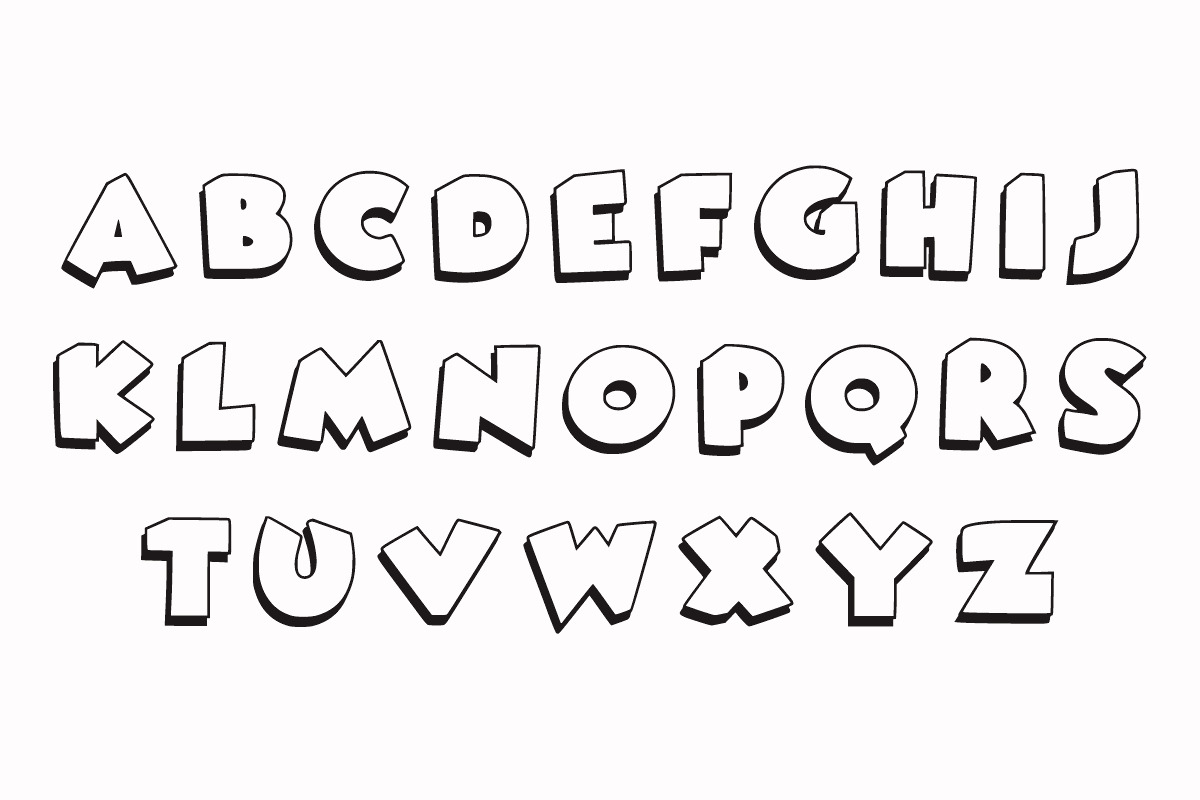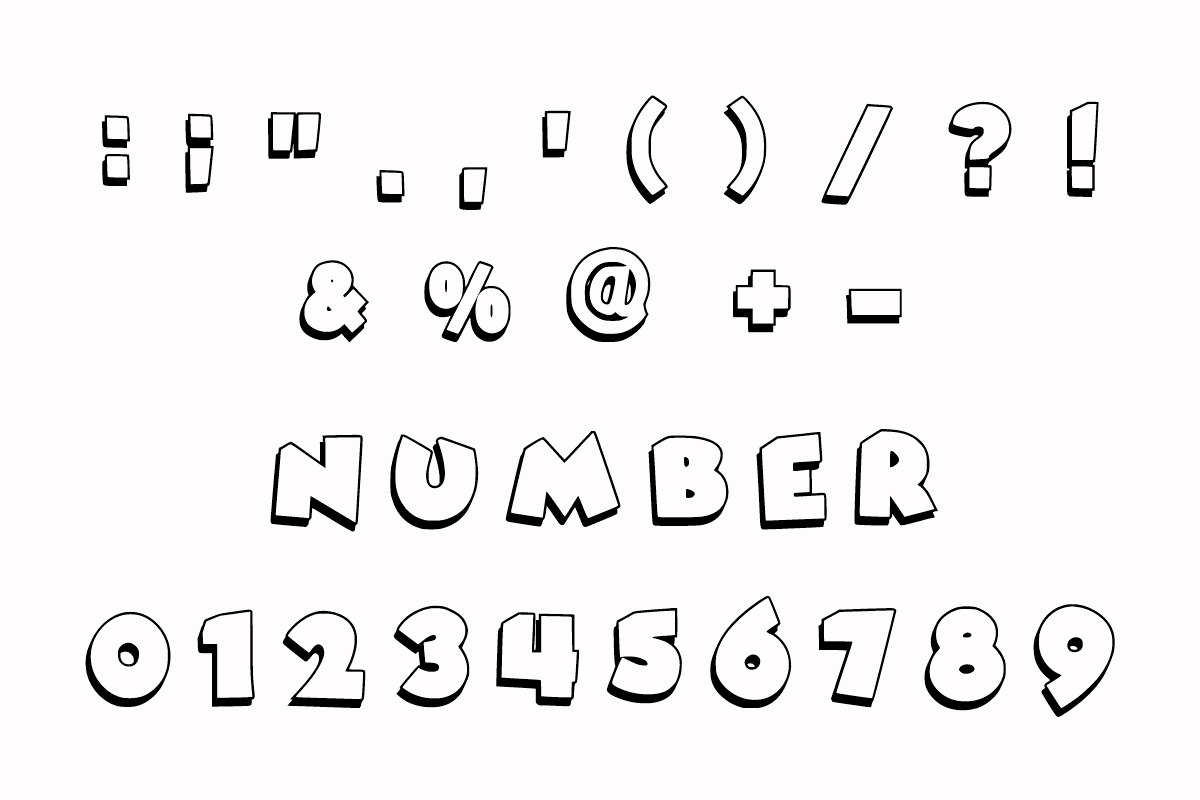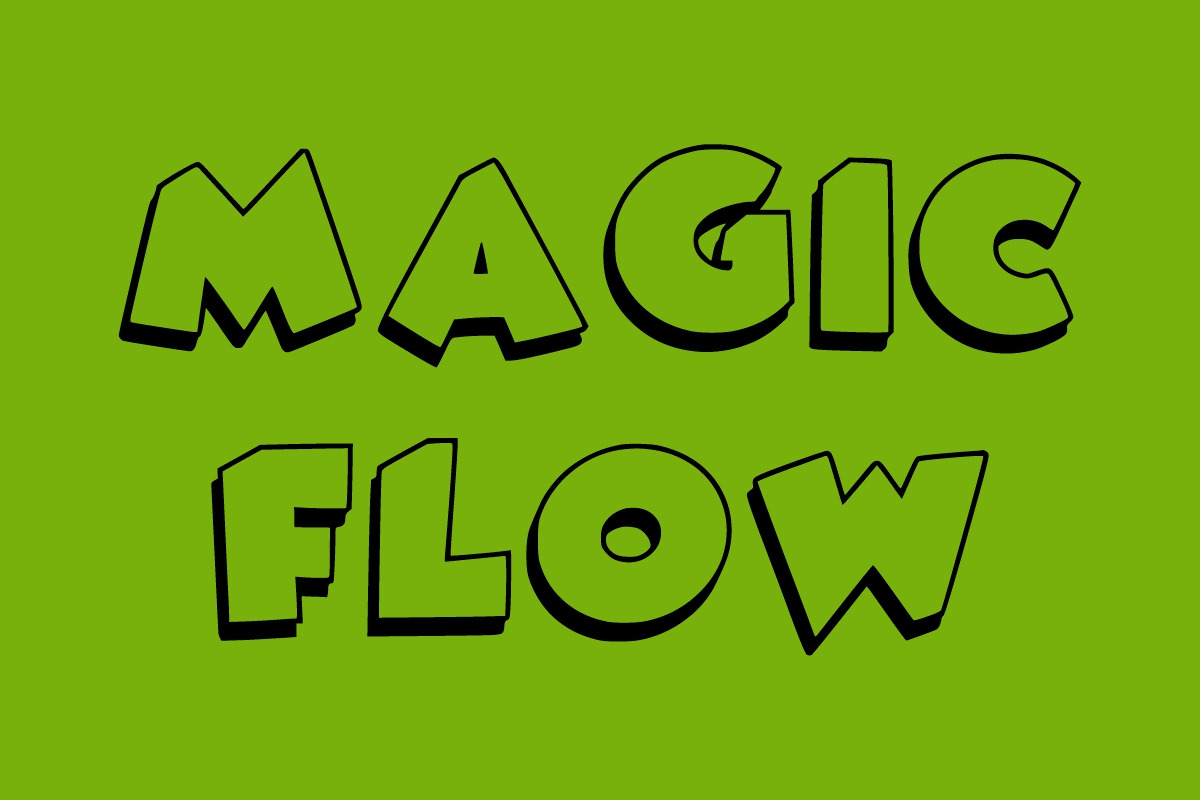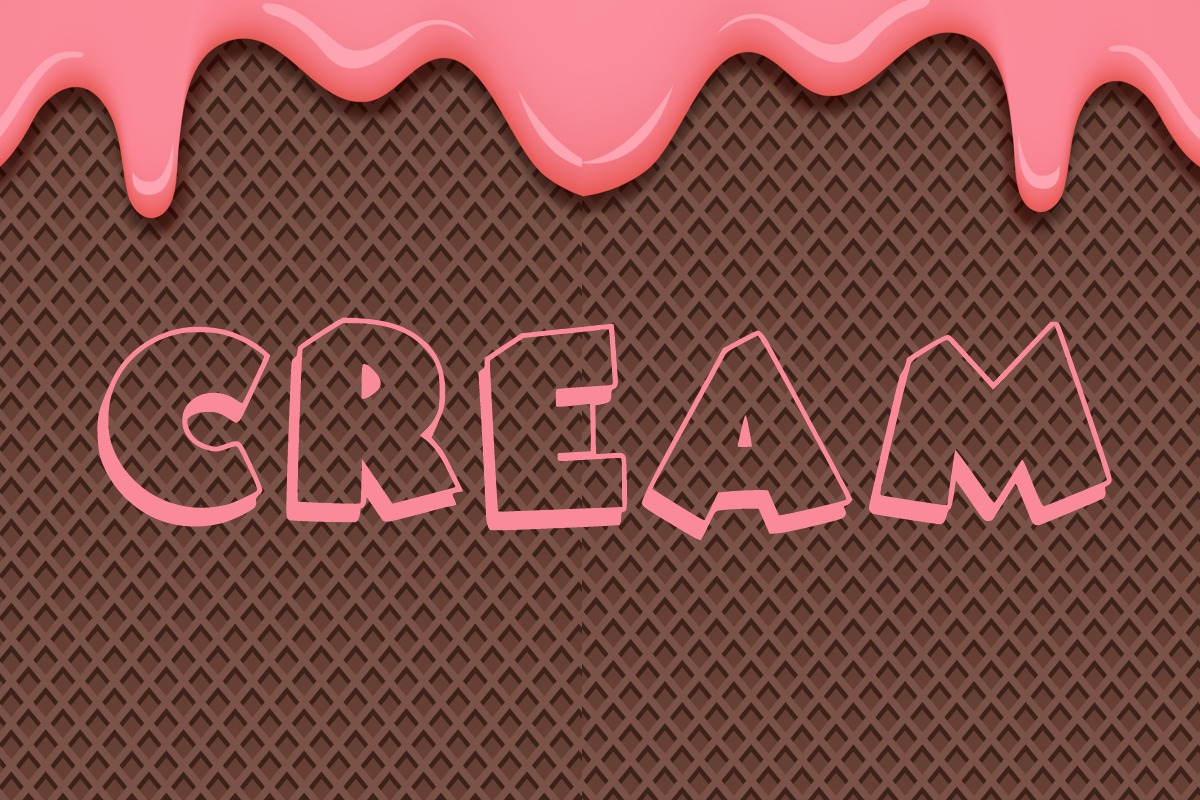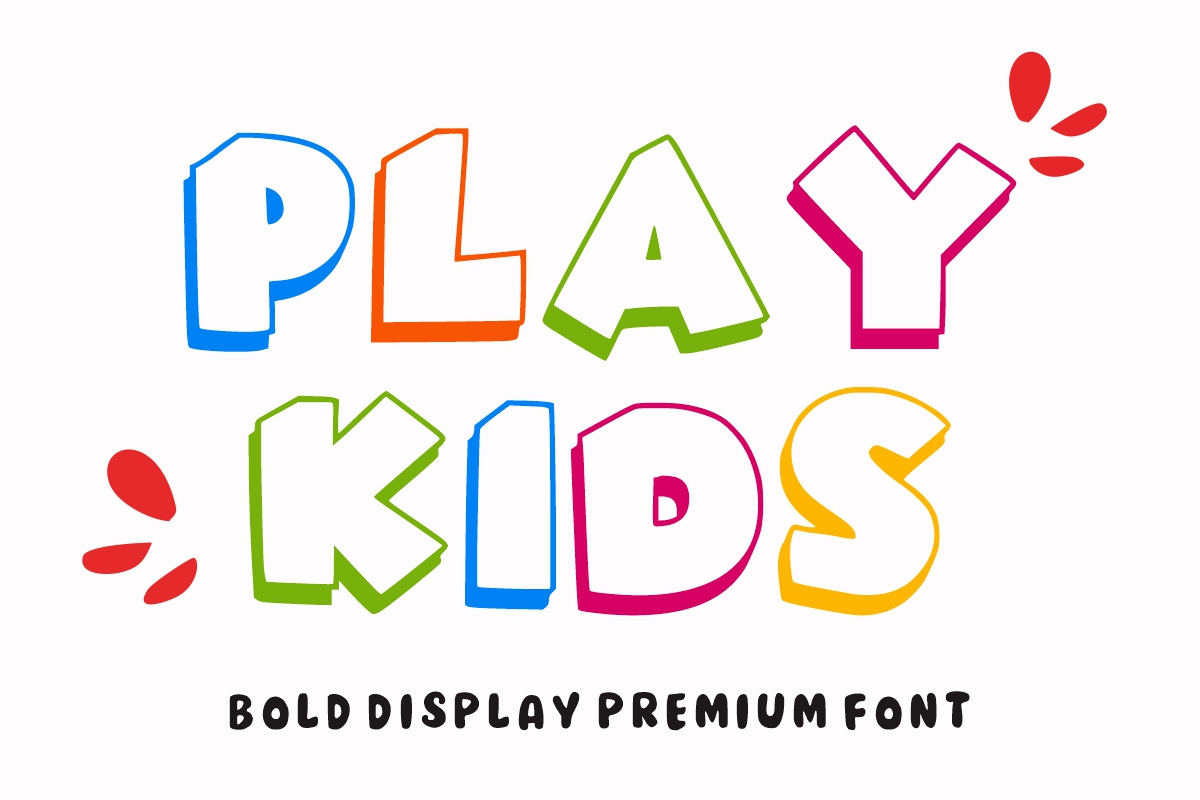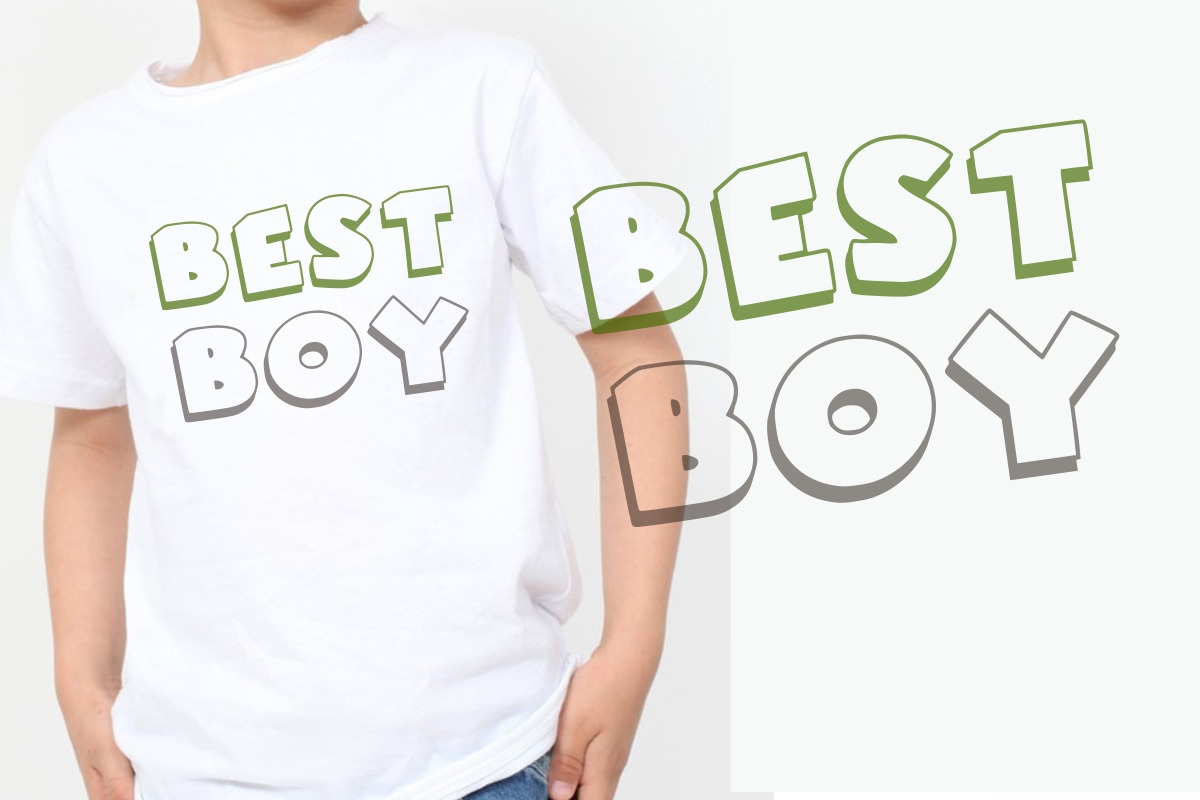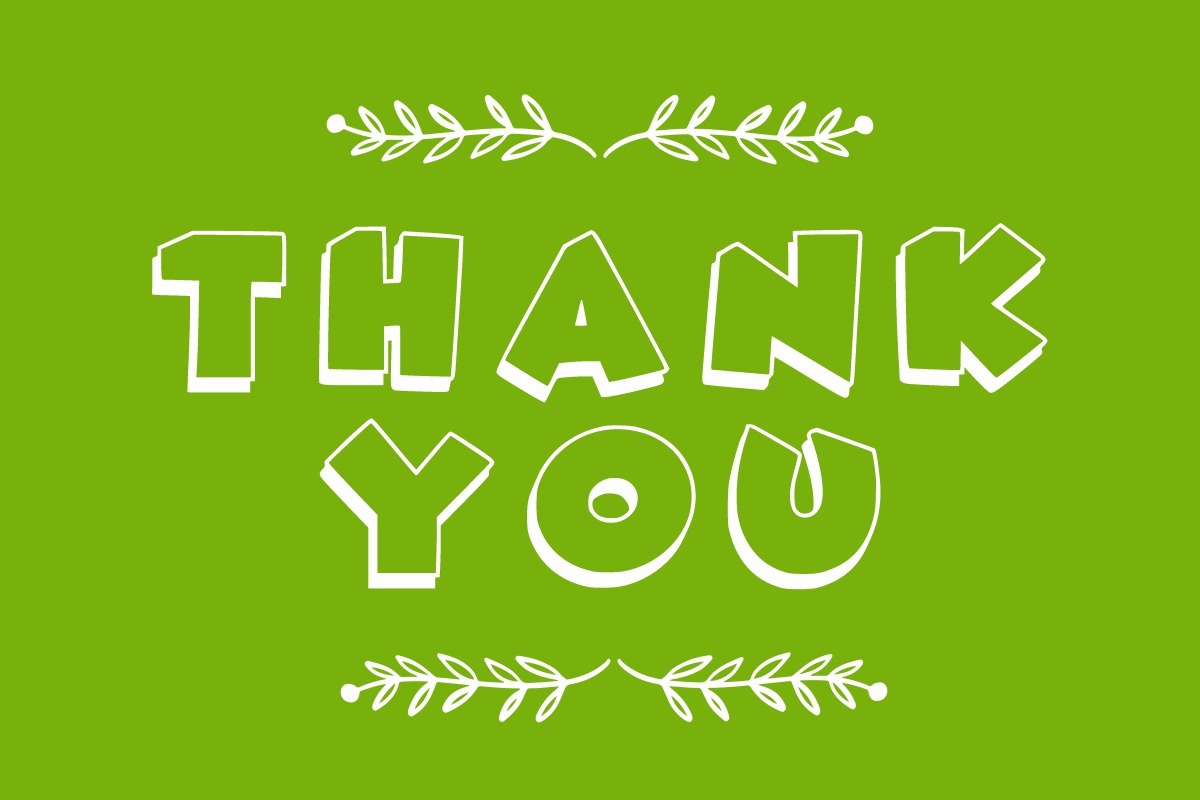
SUPER ROUND
Super Round is a colorful, outline, and childish, easy-to-read display font that conveys impeccable friendliness. Whether you’re using it for crafts, digital design, presentations, or greeting cards, this font has the potential to become your favorite go-to font, no matter the occasion!